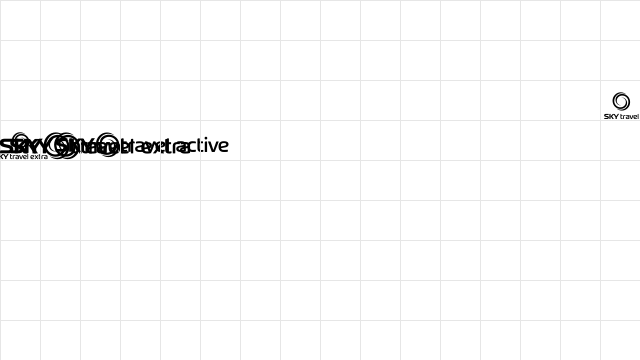
SKYfonttravel Regular
Design Context for SKYfonttravel Typeface
SKYfonttravel offers clean, dependable letterforms without strong stylistic allegiance, making it a practical choice for designers who need flexibility.
Pro Tip: Use SKYfonttravel in both headline and body roles to test its range before committing to a single application.